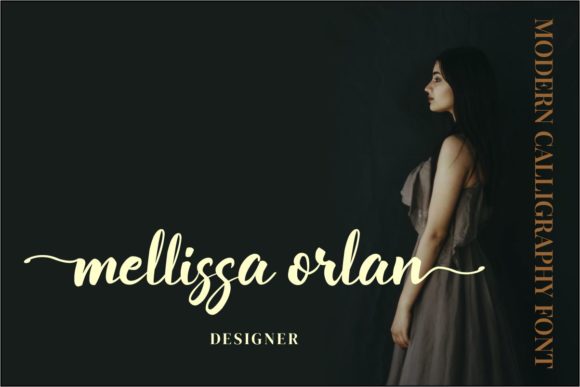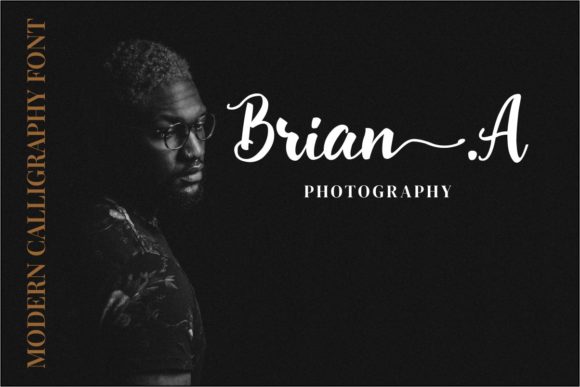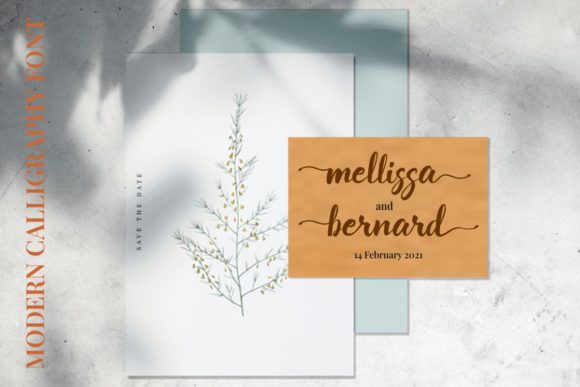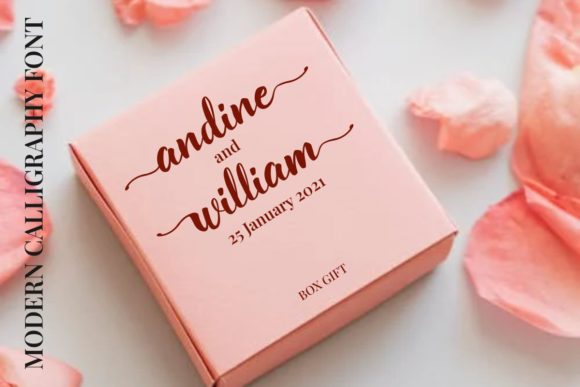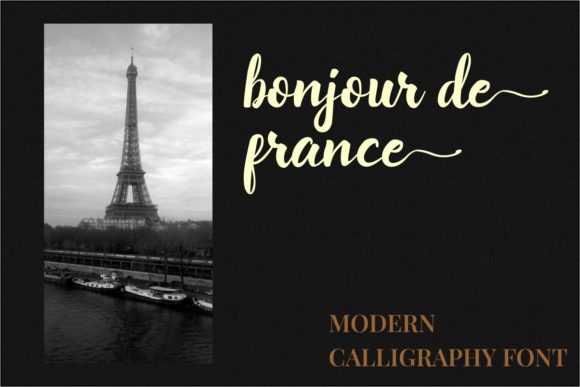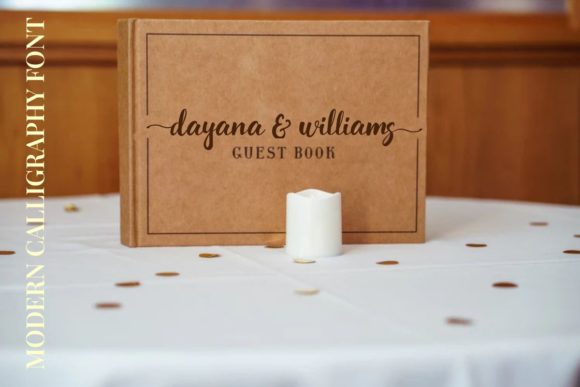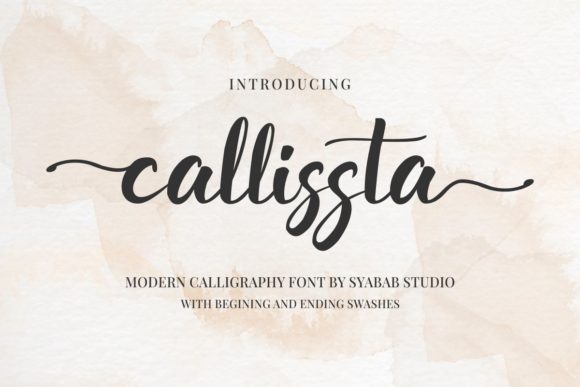
Introducing Callissta Font: A Romantic and Sweet Calligraphy Typeface
Are you a designer or crafter looking for a font that exudes elegance and romance? Look no further than Callissta Font, a beautiful calligraphy typeface that is sure to capture your heart. With its casual yet sophisticated touch, Callissta is perfect for a variety of design projects, from wedding invitations and stationery to branding and packaging.
What Makes Callissta Font So Special?
Callissta Font is a romantic and sweet calligraphy typeface that features characters that dance along the baseline, giving it a playful and whimsical feel. The font has a casual, yet elegant touch that makes it perfect for designs that require a touch of sophistication. Whether you’re creating a wedding invitation, a logo, or a social media graphic, Callissta Font is sure to add a touch of romance and whimsy to your design.
Callissta Font is perfect for designers and crafters who are looking for a font that is both elegant and versatile. The font is suitable for a wide range of design projects, including:
• Branding and packaging
• Social media graphics
• Blog and website headers
• Digital and print advertising
Tips for Using Callissta Font
Here are a few tips for using Callissta Font in your design projects:
• Use Callissta Font as a headline font to add a touch of elegance and sophistication to your design.
• Pair Callissta Font with a simpler font, such as a sans-serif font, to create a beautiful contrast.
• Experiment with the font’s built-in features, such as ligatures and swashes, to add an extra layer of elegance to your design.
• Use Callissta Font in combination with other design elements, such as illustrations and graphics, to create a unique and eye-catching design.
In conclusion, Callissta Font is a beautiful and versatile calligraphy typeface that is perfect for designers and crafters who are looking for a font that exudes elegance and romance. With its casual yet sophisticated touch, Callissta Font is suitable for a wide range of design projects, from wedding invitations and stationery to branding and packaging. And with PUA encoding, you can easily access all of the font’s built-in features, such as glyphs and swashes, to add an extra layer of elegance and sophistication to your design.
• What is Callissta Font? Callissta Font is a romantic and sweet calligraphy typeface with characters that dance along the baseline.
• What can I use Callissta Font for? Callissta Font is suitable for a wide range of design projects, including wedding invitations and stationery, branding and packaging, social media graphics, and more.